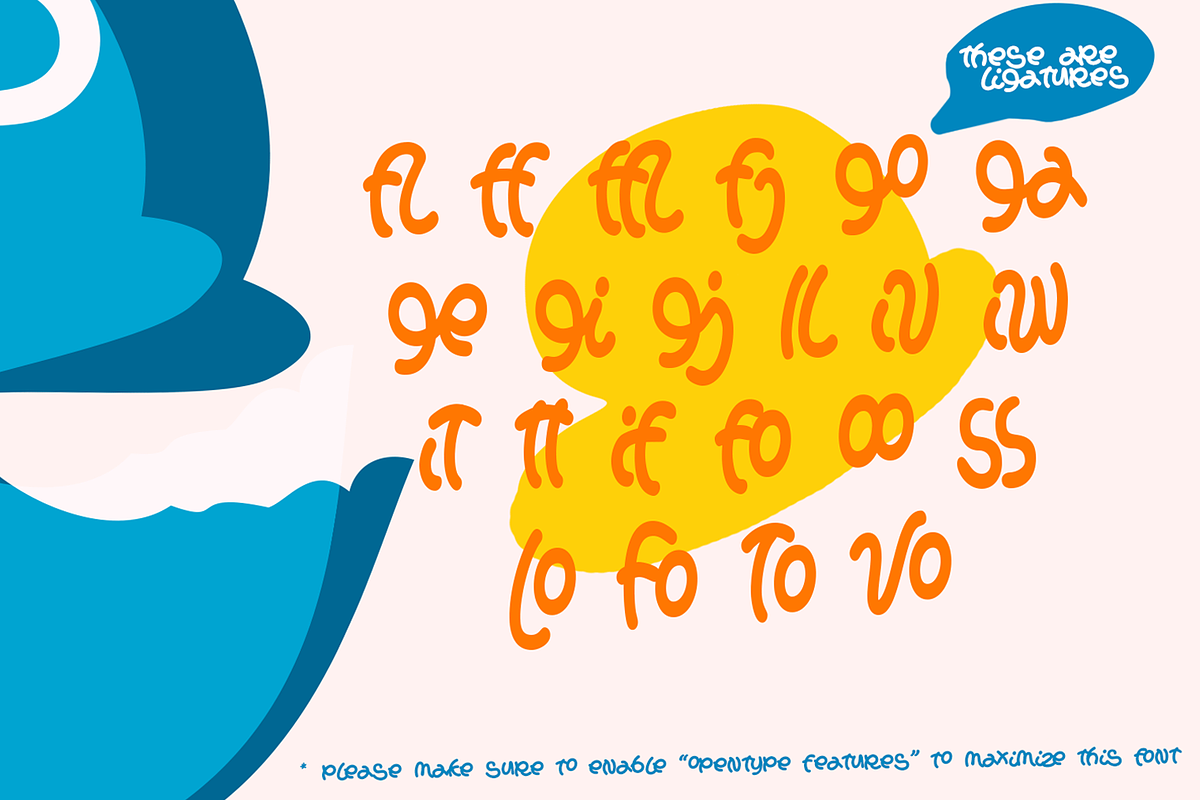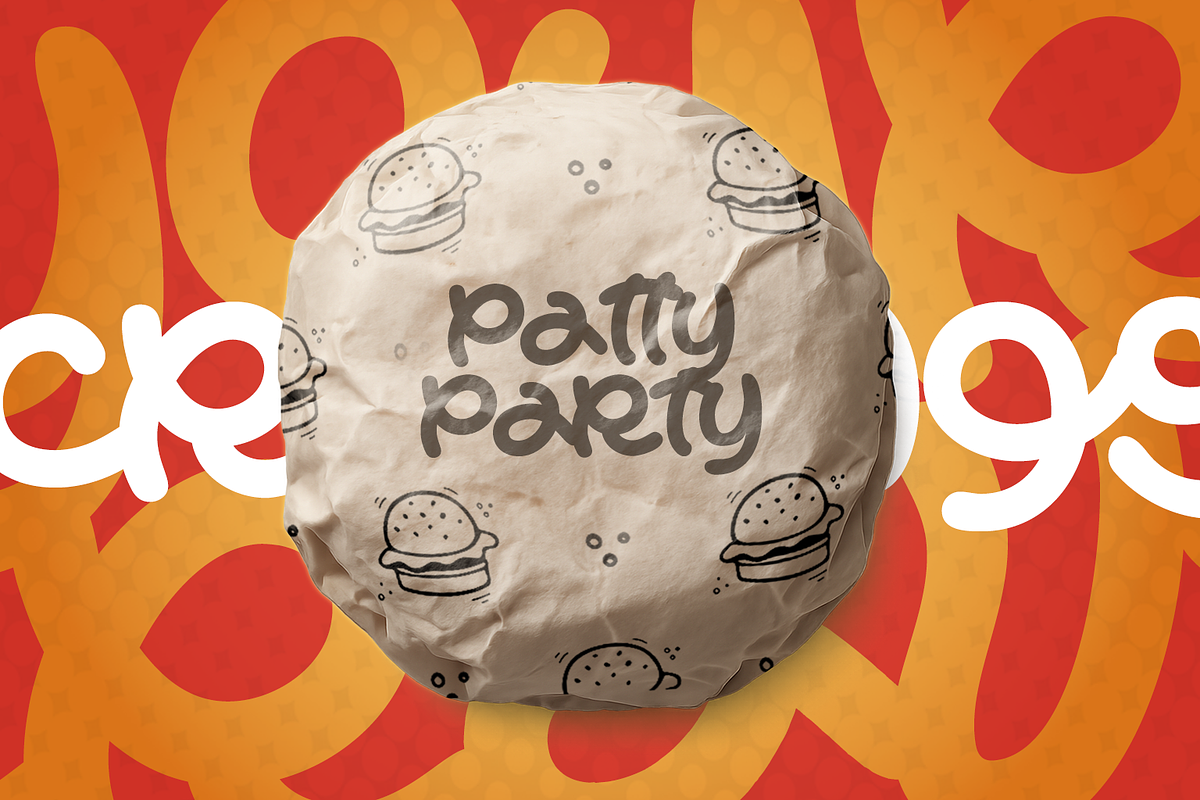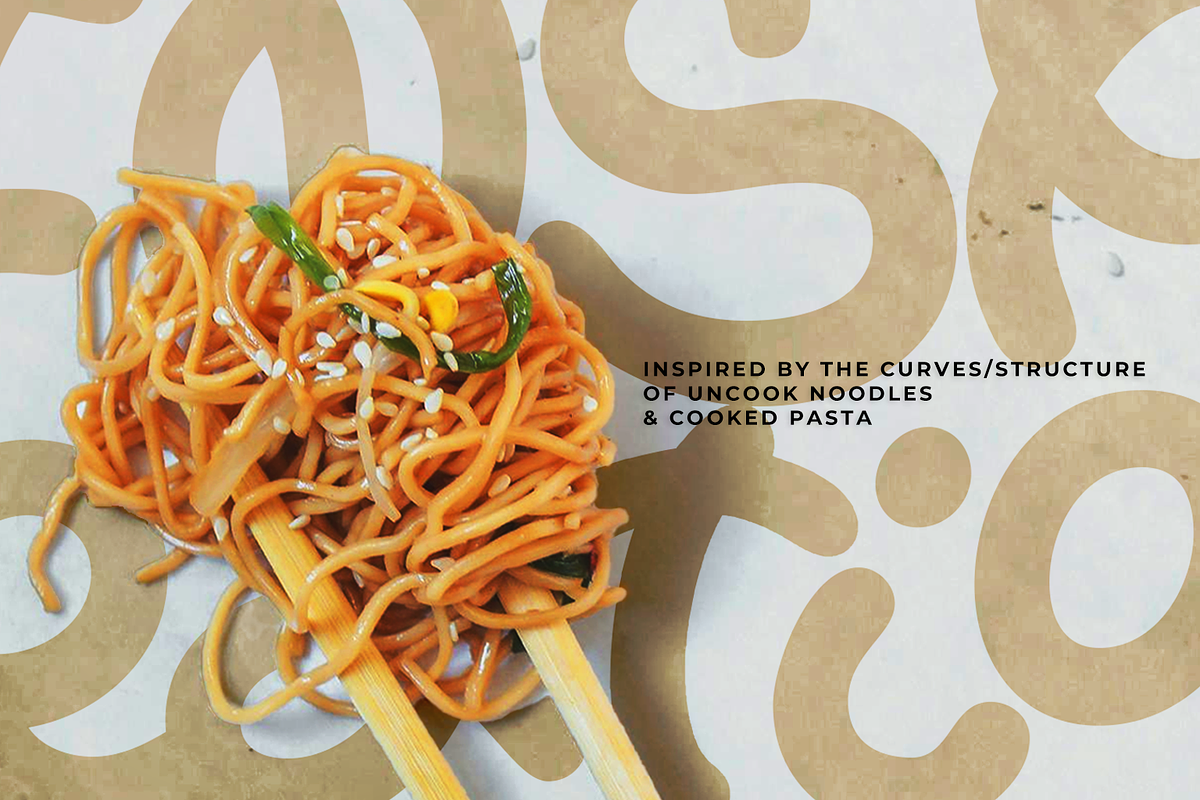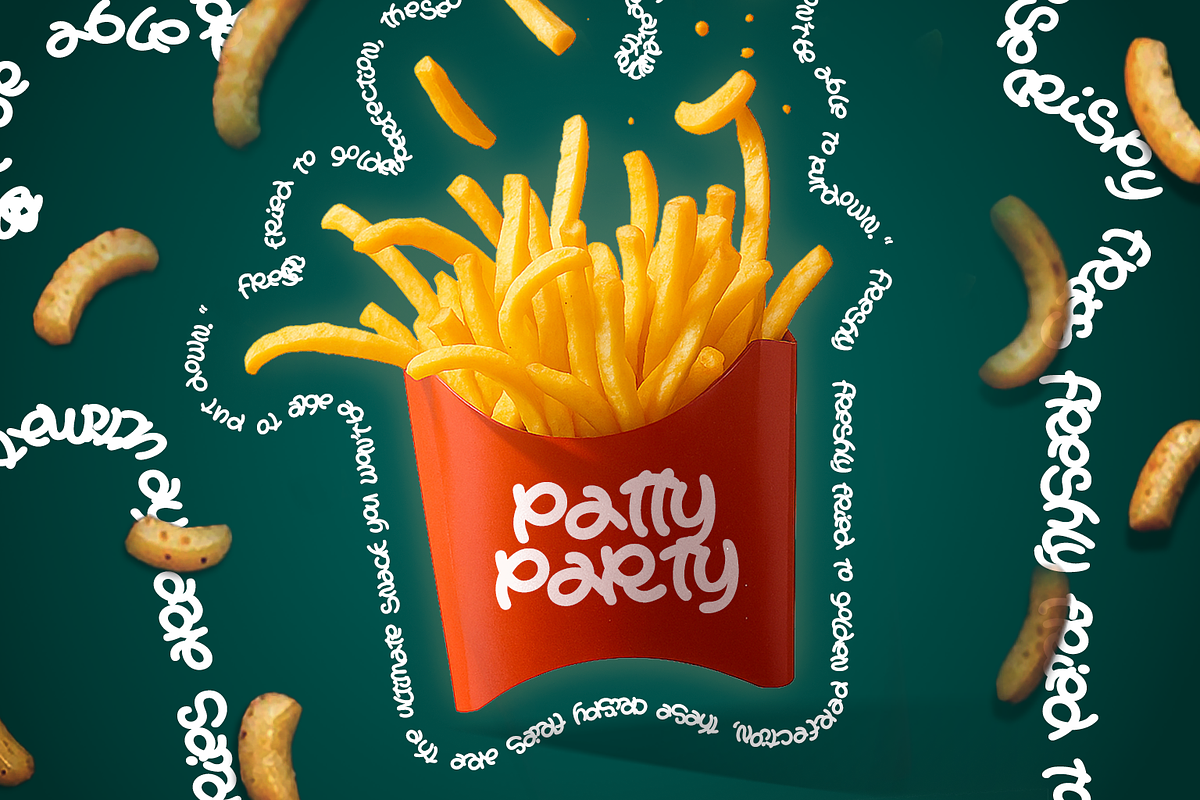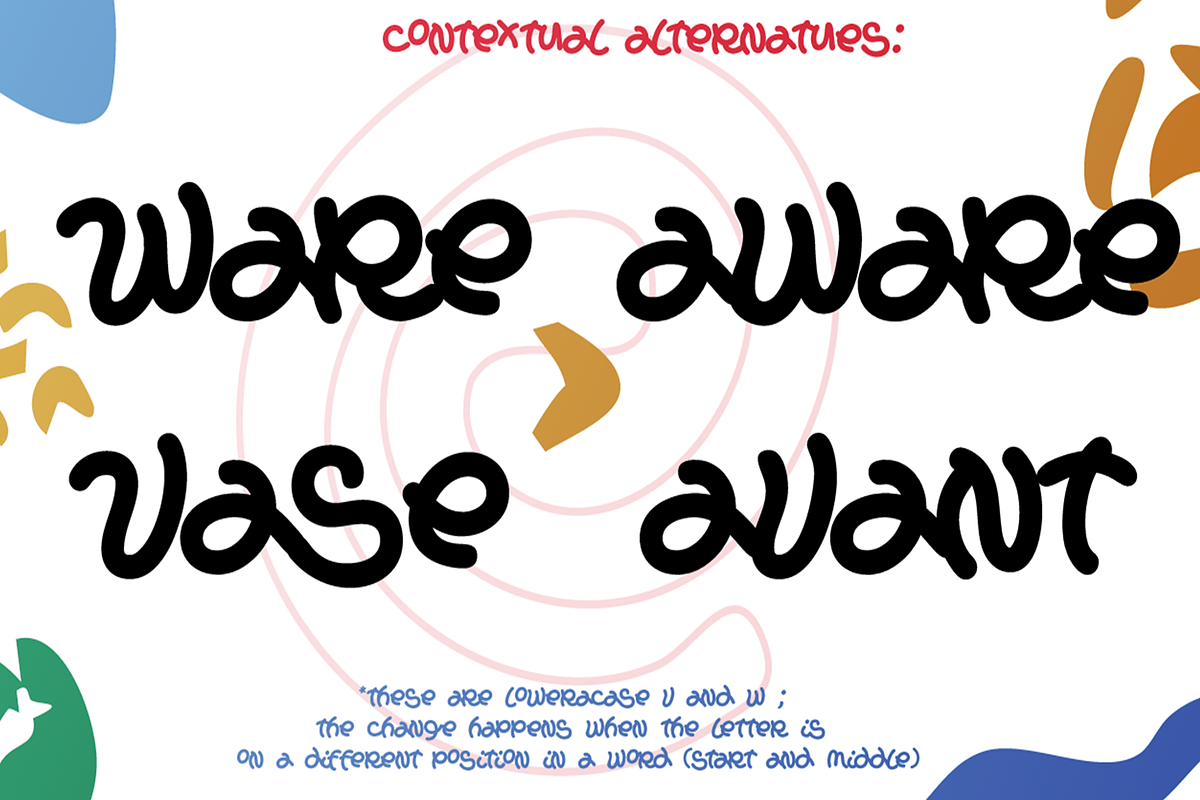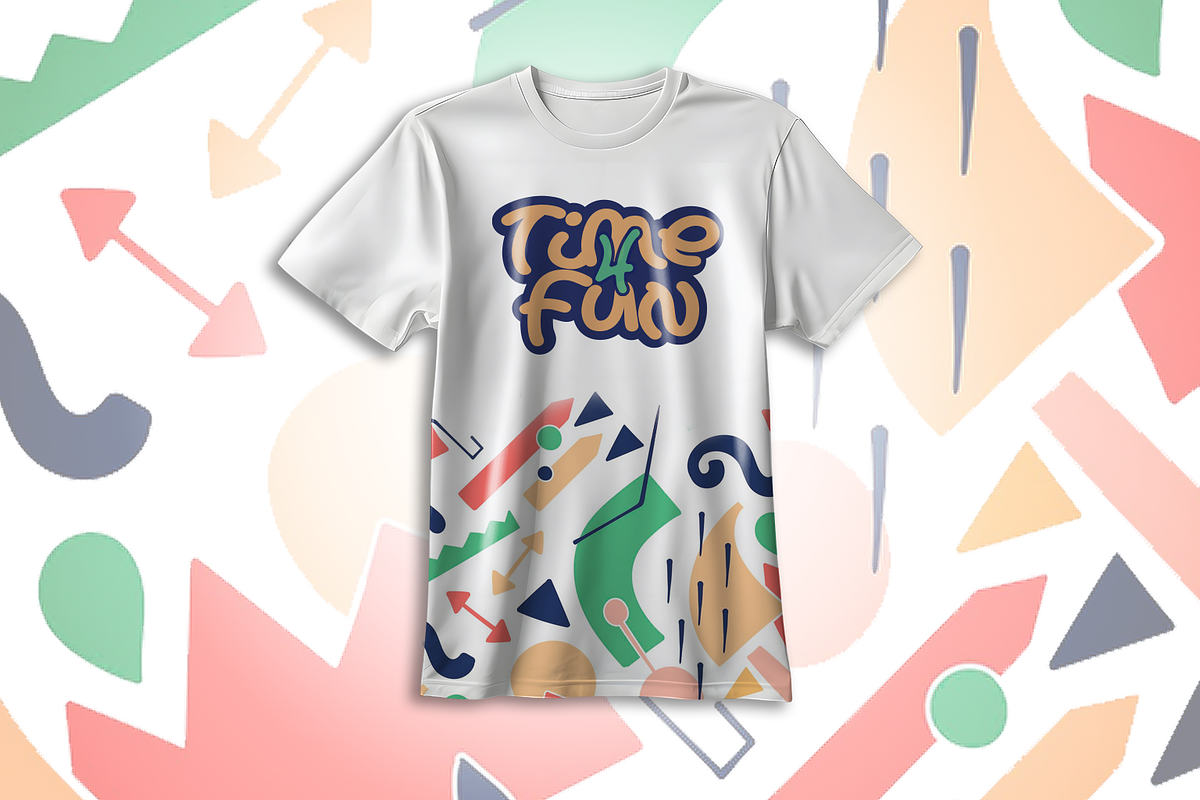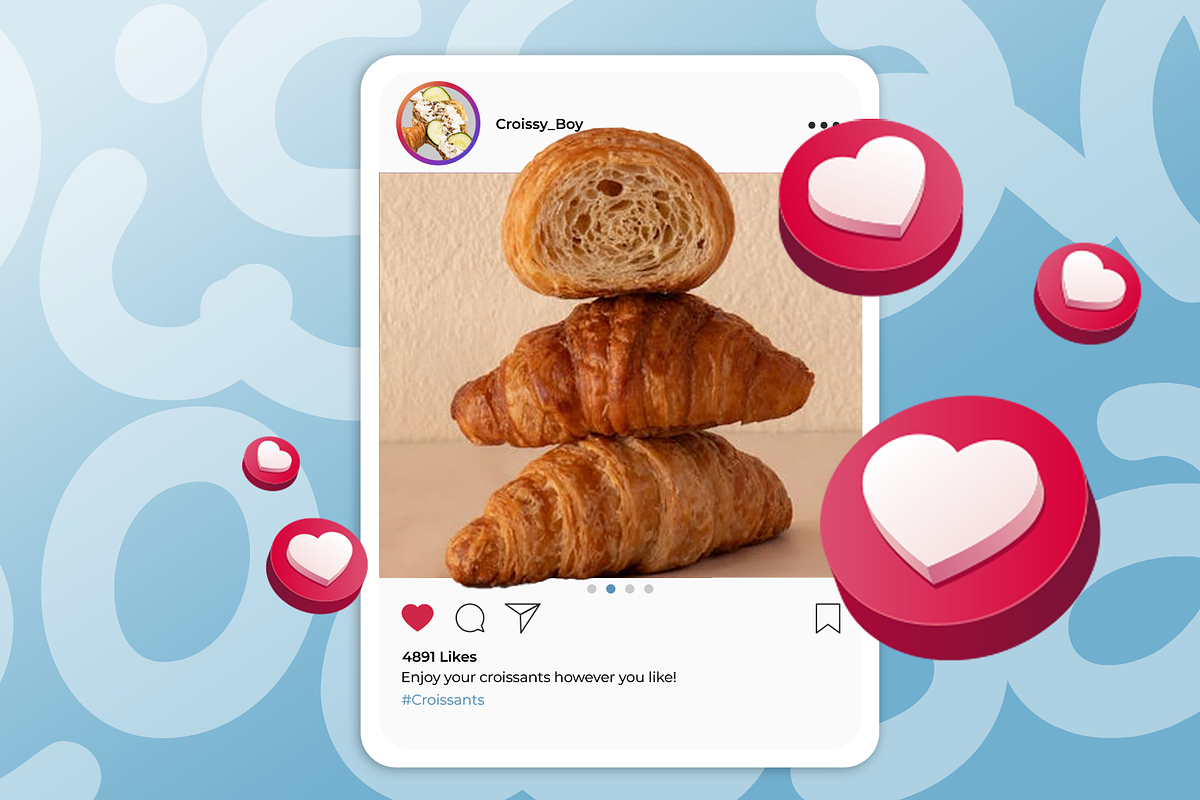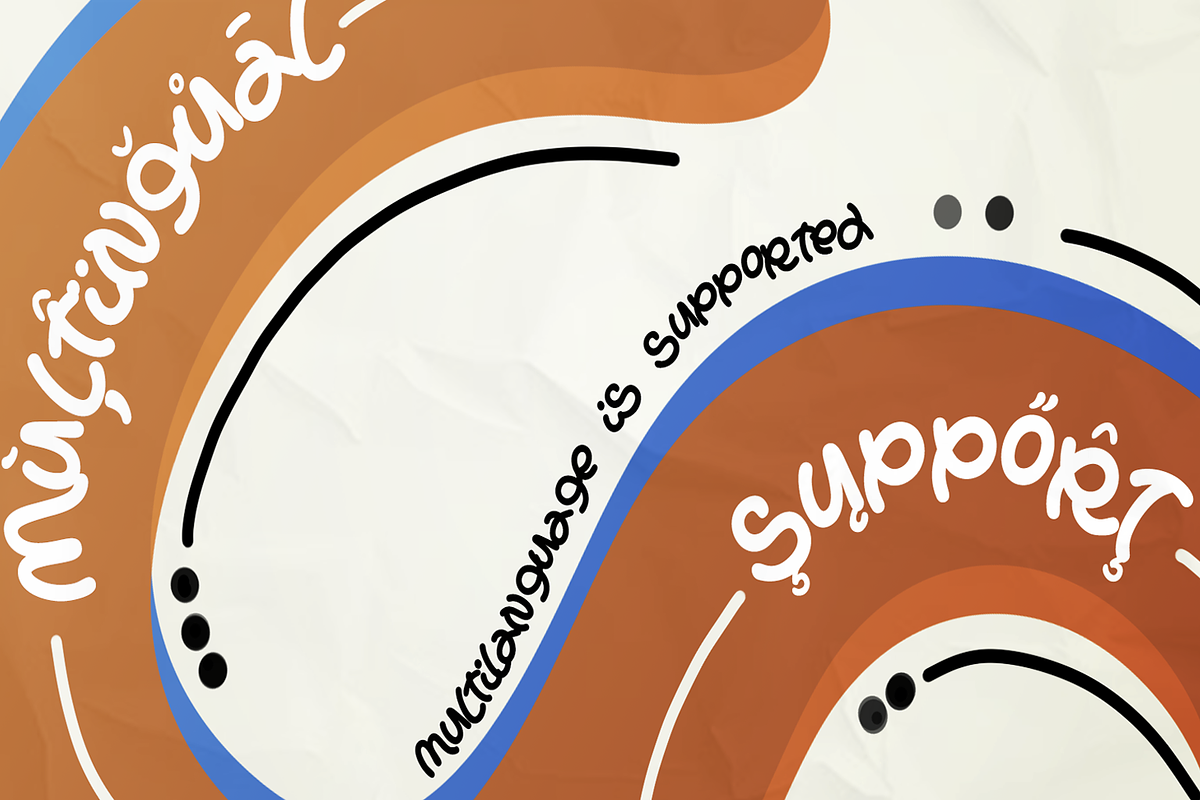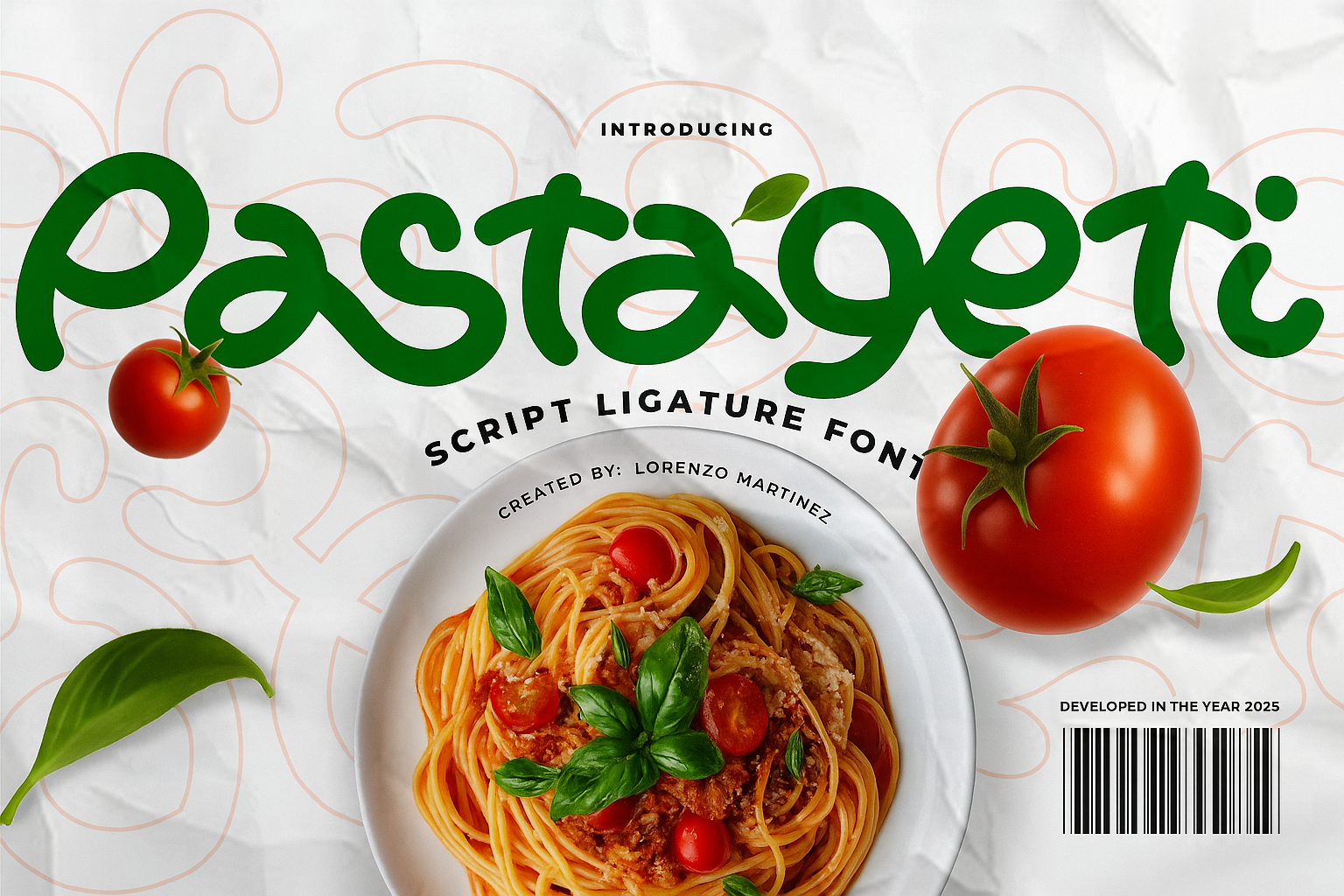
Pastageti-Script Ligature Font
Pastageti is a bold and fun script font inspired by the curly, flowing shapes of dry instant noodles and freshly cooked pasta. Designed with dozens of stylish ligatures, each letter connects seamlessly, giving your typography a natural, hand-lettered feel. Its full multilingual support makes it perfect for designers worldwide, whether you’re creating menus in Paris, logos in New York, or packaging in Manila.
With its smooth curves and organic flow, Pastageti is ideal for restaurant branding, café menus, food packaging, social media graphics, and lifestyle blog headers. The playful yet professional design works beautifully in both print and digital projects, ensuring your text stands out with personality and warmth.
Bring the taste of Italy and the charm of hand lettering into your next design with Pastageti—where every letter feels like a twirl of pasta on a fork.